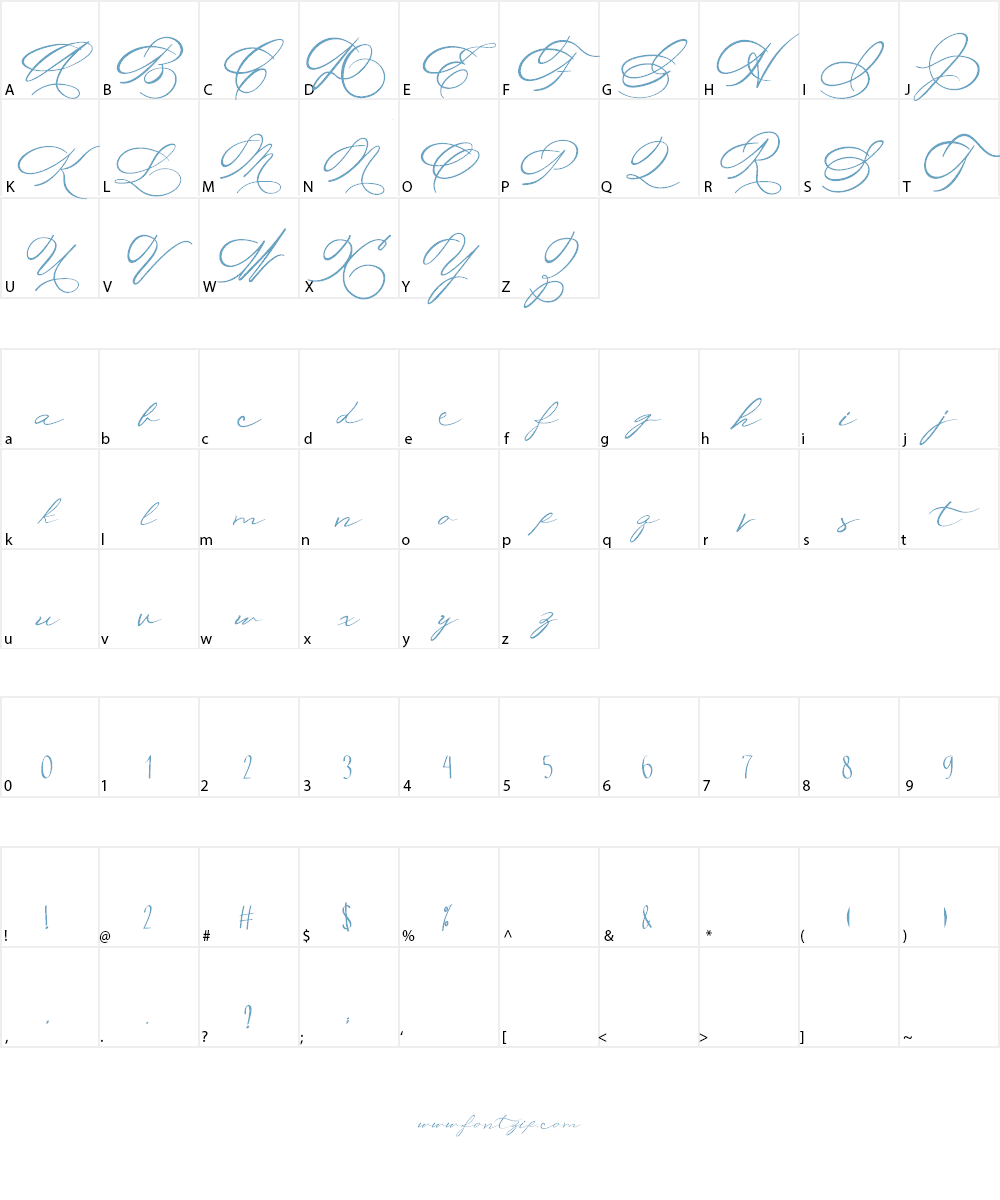
Michelle Fellicia Font is a beautiful handwritten font with a natural and elegant caligraphy look. It
can be used in a wide range of design projects and is easy to use.
Michelle Fellicia comes with uppercase, lowercase, standard punctuation, and numbers.
Michelle Fellicia has variety of unique handmade-look outcomes that can be combined together with a
large range of designs.